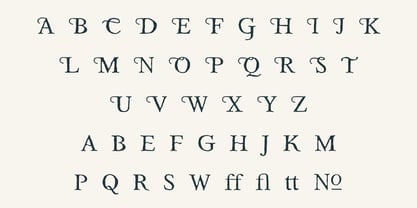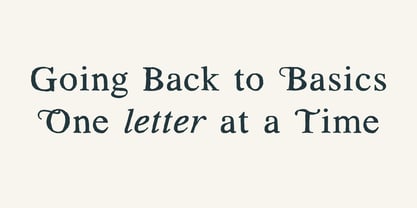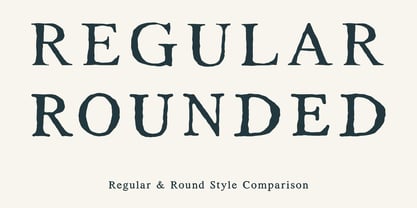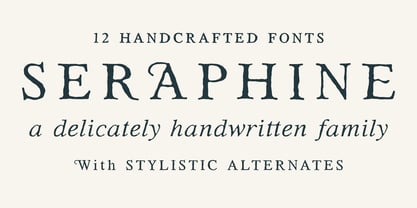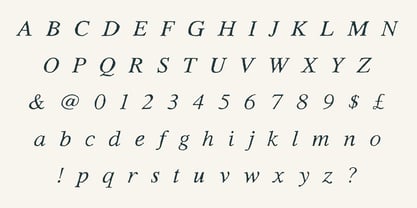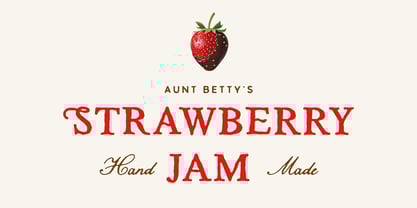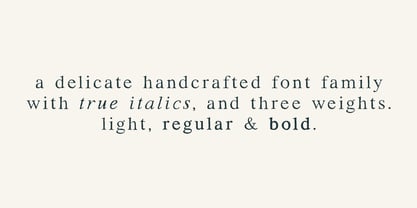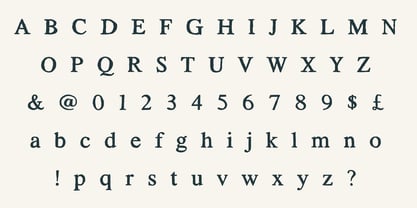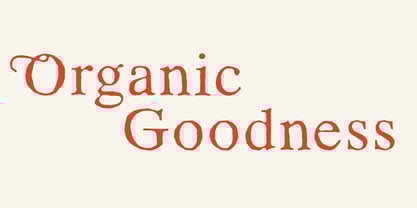
TC Seraphine
by Tom Chalky
Meet Seraphine – a serif font family with a delicate, handcrafted touch. With 12 fonts in total, Seraphine comes in both rounded and regular styles, each available in light, regular, and bold weights, plus true italics for a bit of extra flair.
Seraphine blends classic serif structure with a hint of human warmth, giving each letter a subtle, organic feel. Whether you're working on branding, editorial layouts, or packaging, this versatile family can adapt to a wide range of styles and projects!
• Regular and Rounded Styles
• Light, Regular, and Bold Weights
• True Italic Variants
• Subtle and Effective Stylistic Alternates
Designers: Tom Chalky
Foundry: Tom Chalky